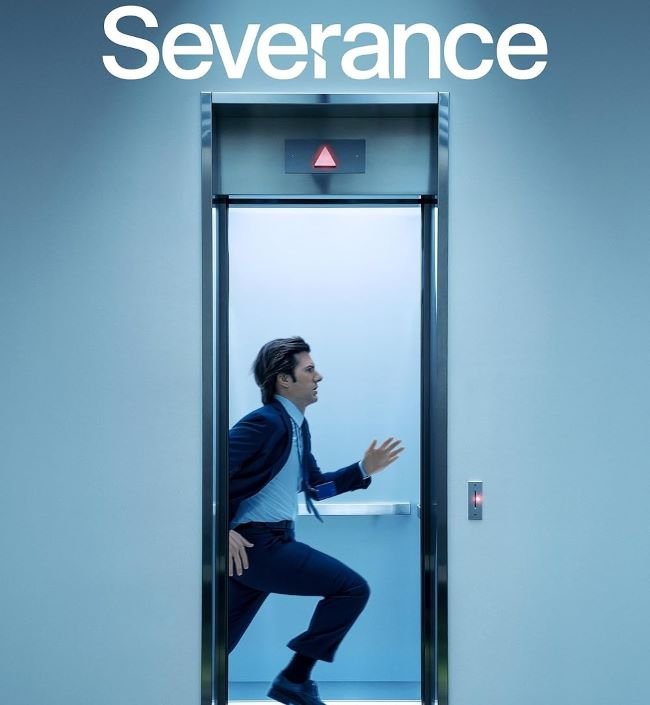
Severance Font
Severance font — DIN 2014 in its base, with a custom Helvetica-adjacent typeface applied in the actual title treatment — is the typographic language of Lumon Industries: geometric, precise, stripped of personality to the point where the absence of personality becomes its own unsettling presence. Ben Stiller’s Apple TV+ 2022 series about employees who undergo a procedure to split their work and personal consciousnesses needed title lettering that could feel both utterly corporate-normal and deeply wrong in a way that takes a moment to identify, and the clinical sans-serif achieves that effect with complete efficiency. The freely available Severance Font Alternative approximates this cold, sterile typographic authority.